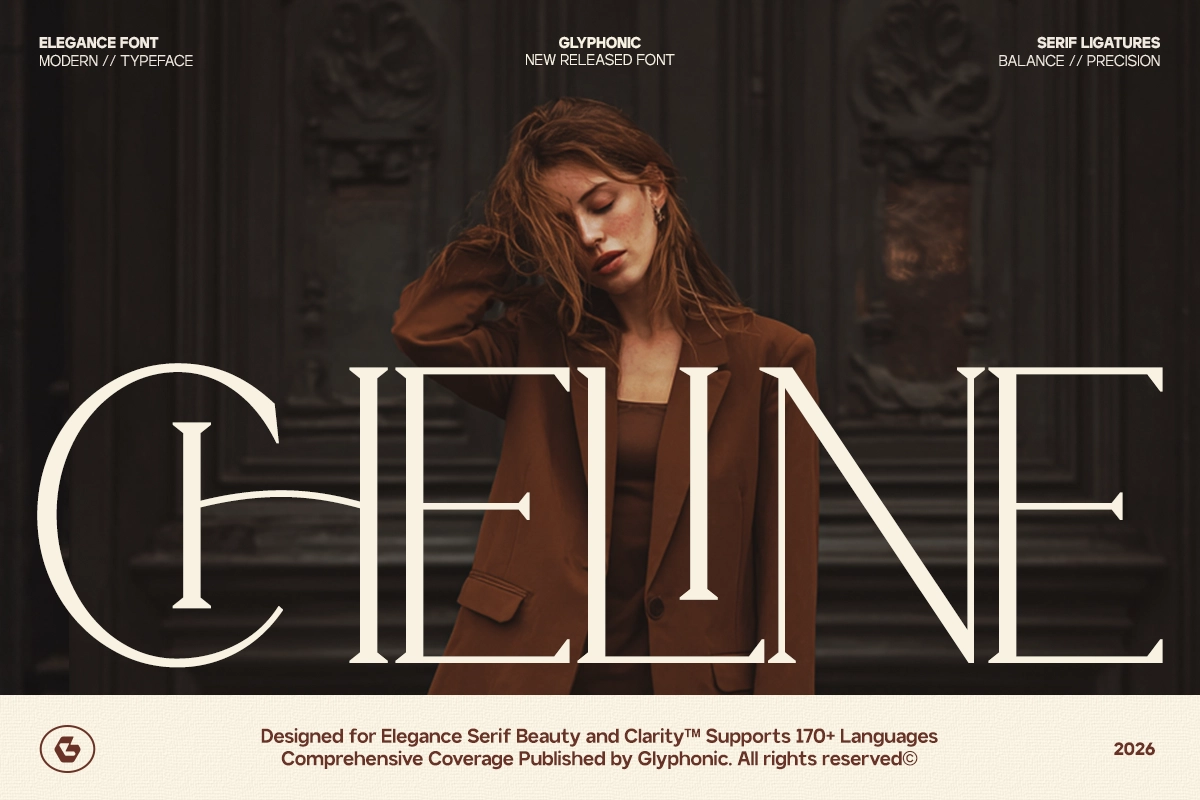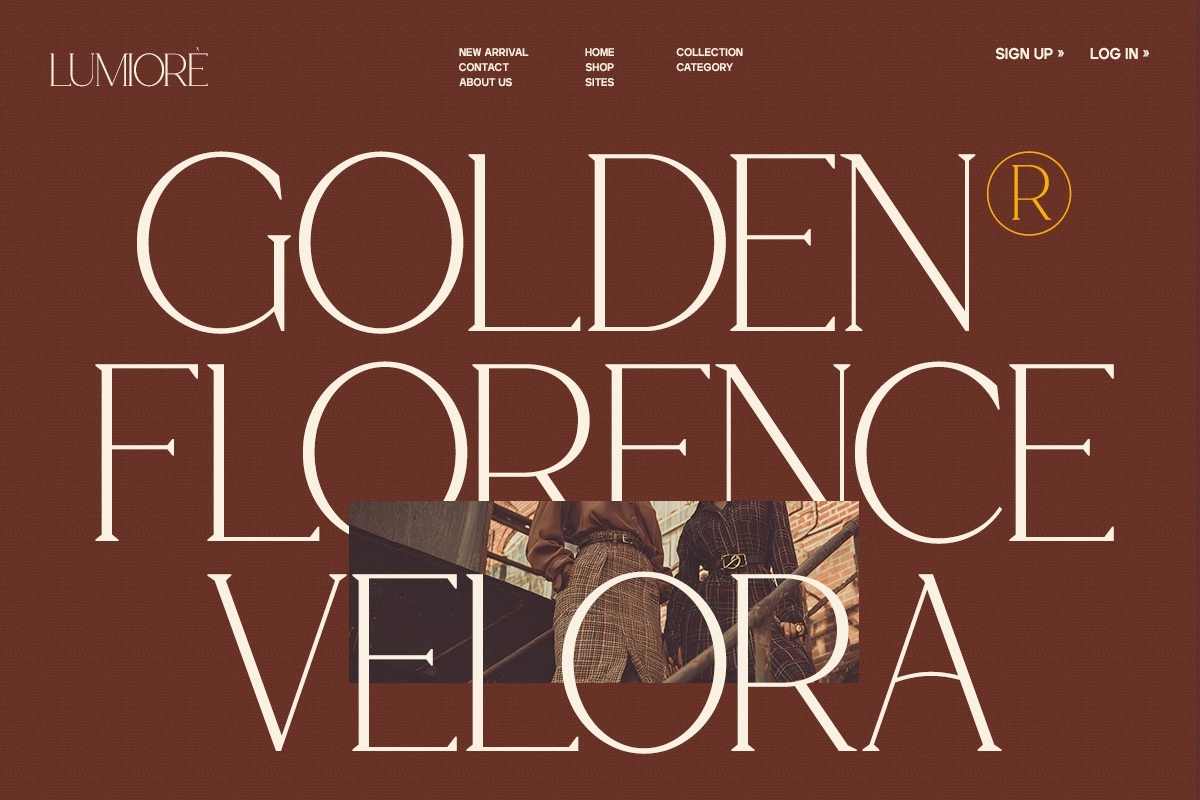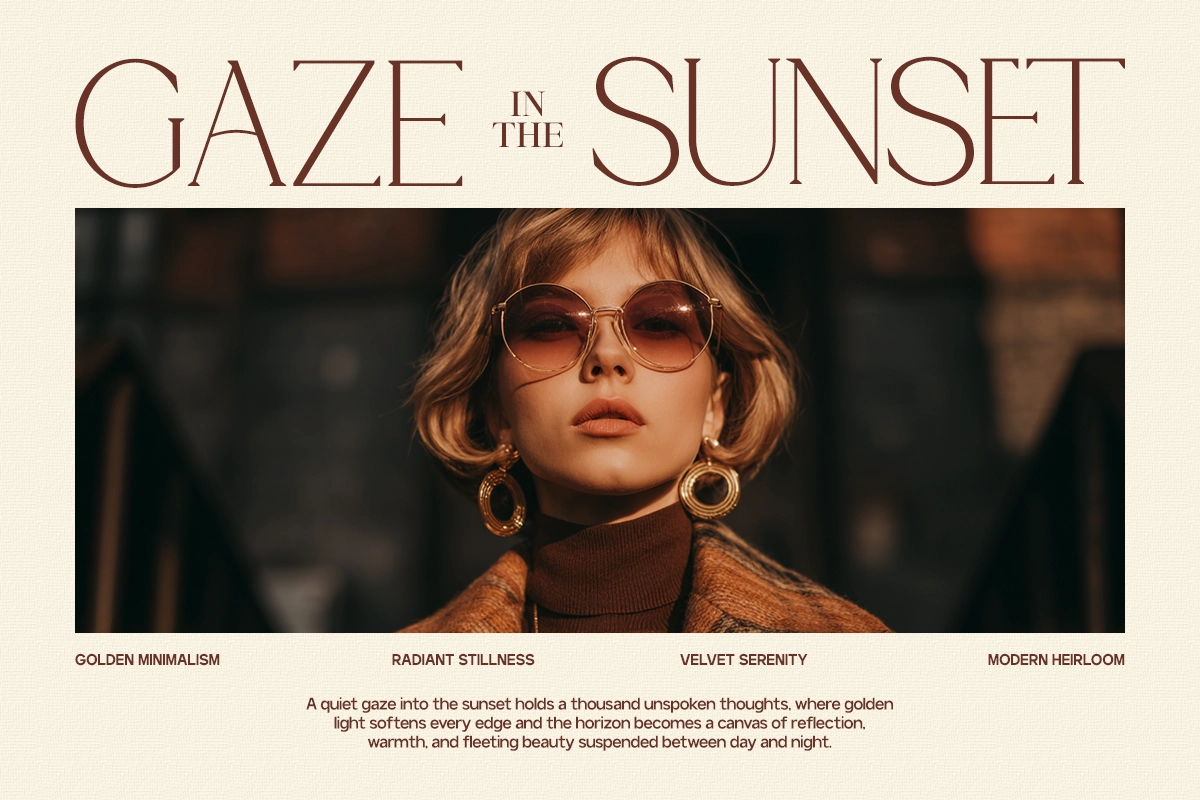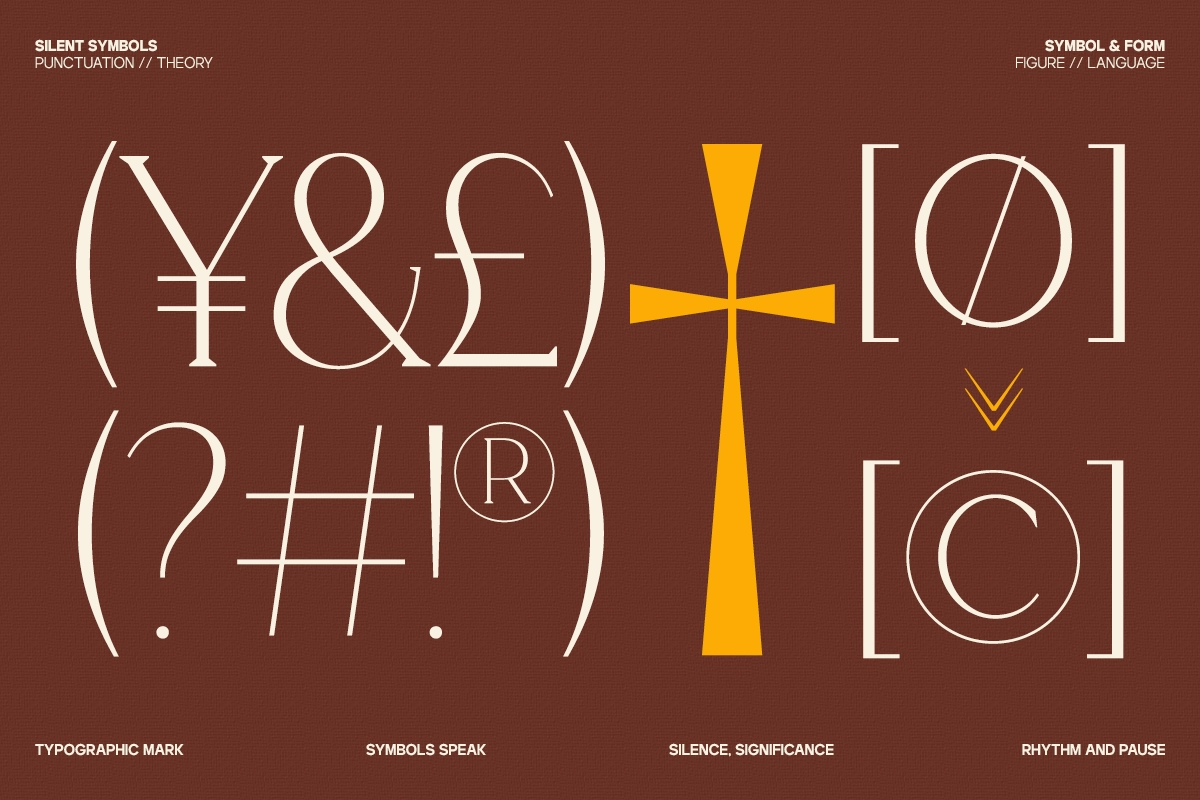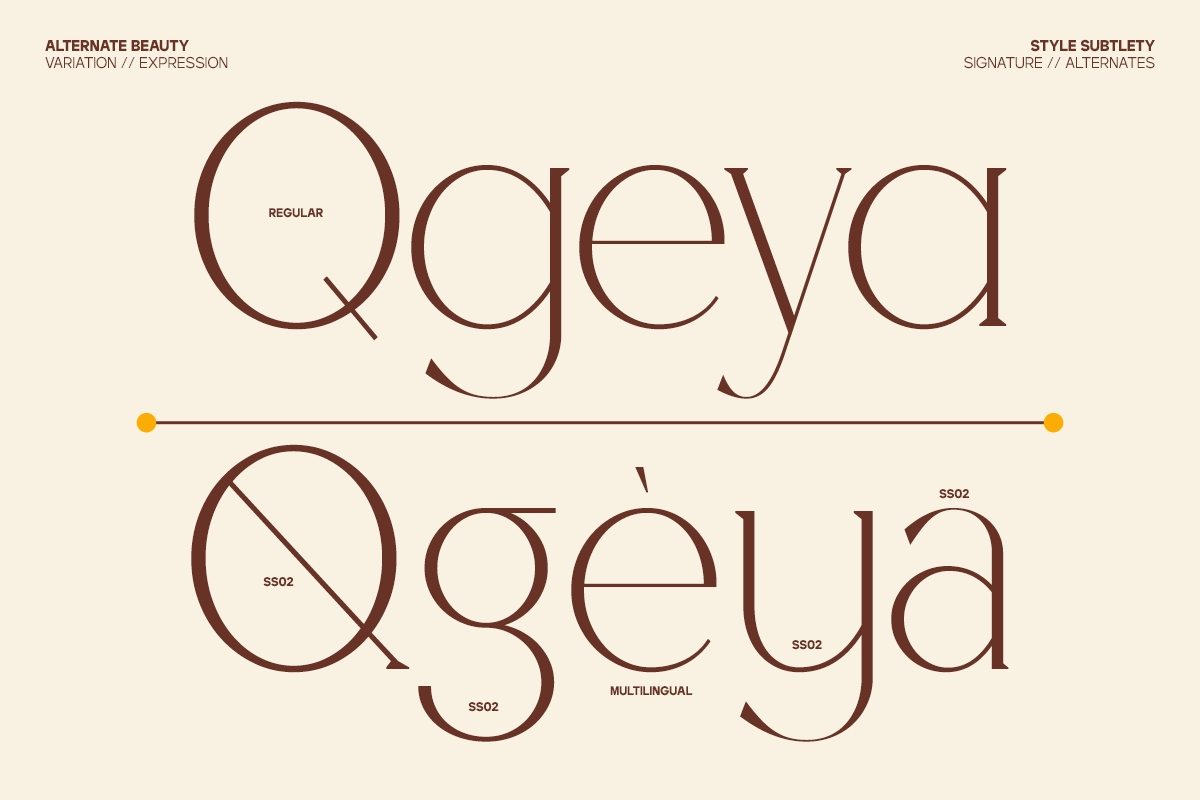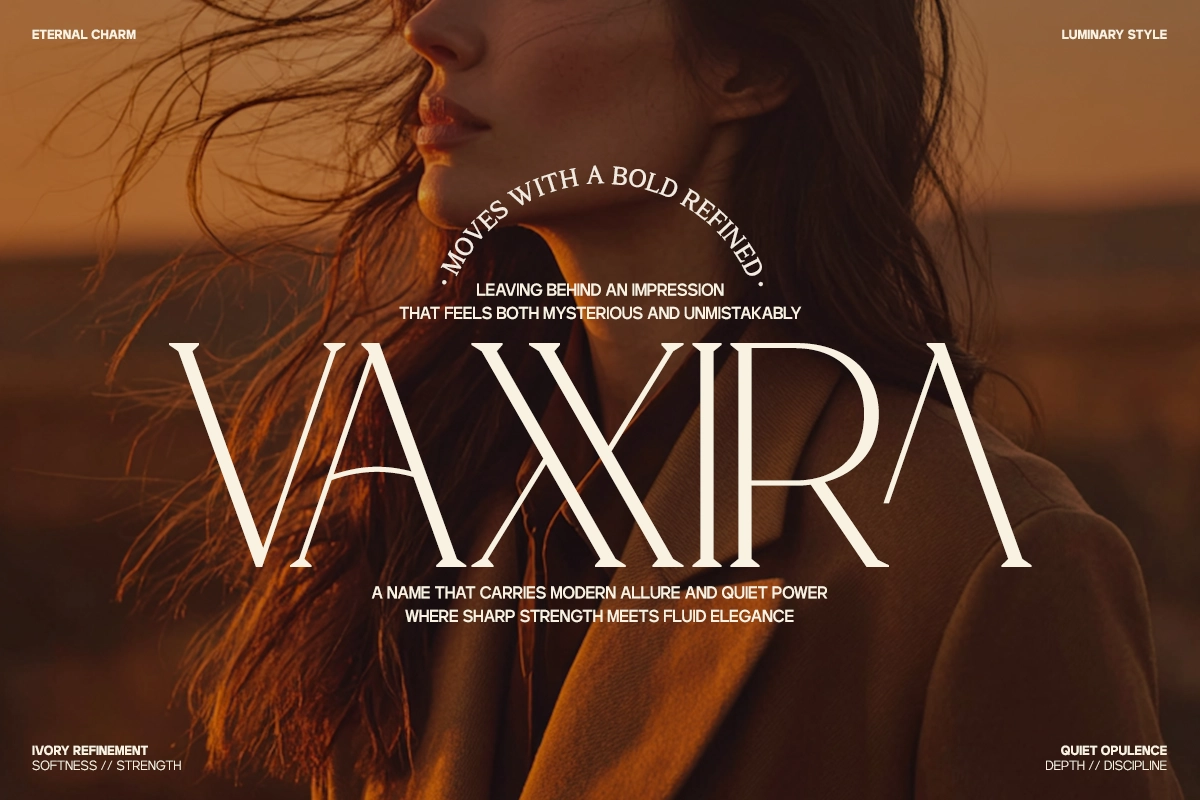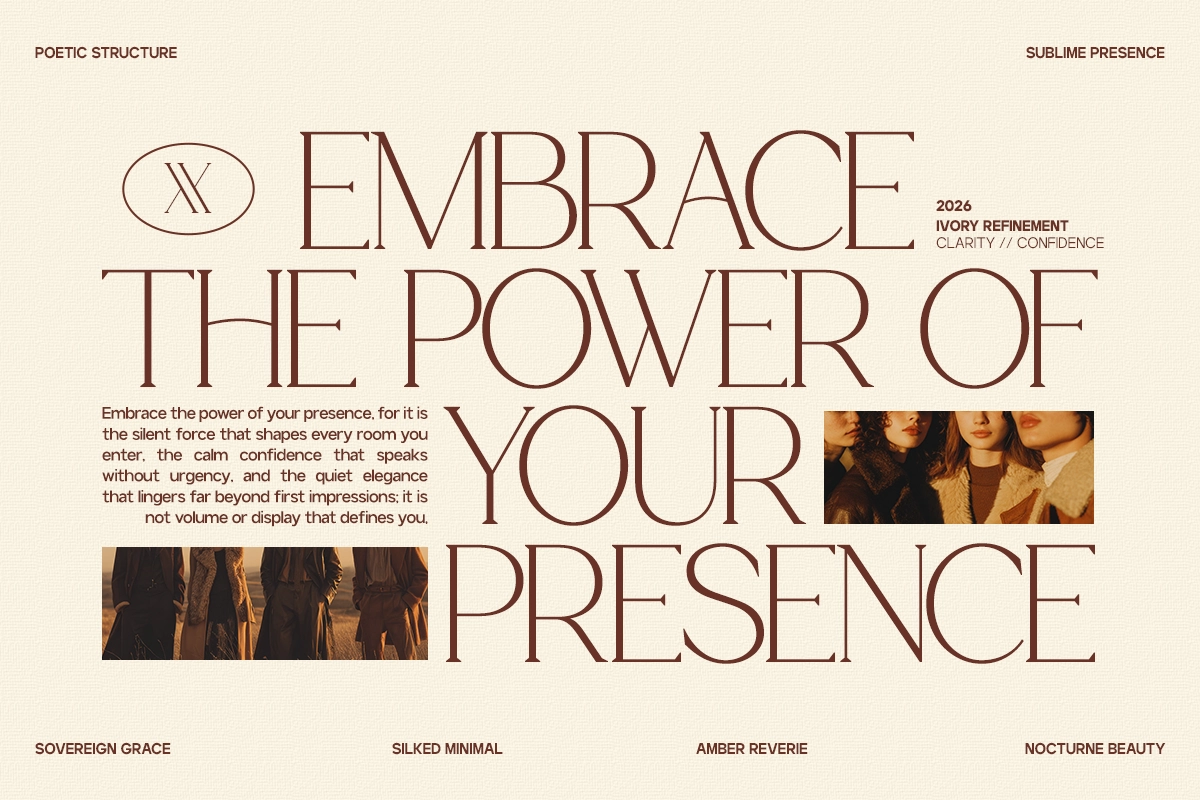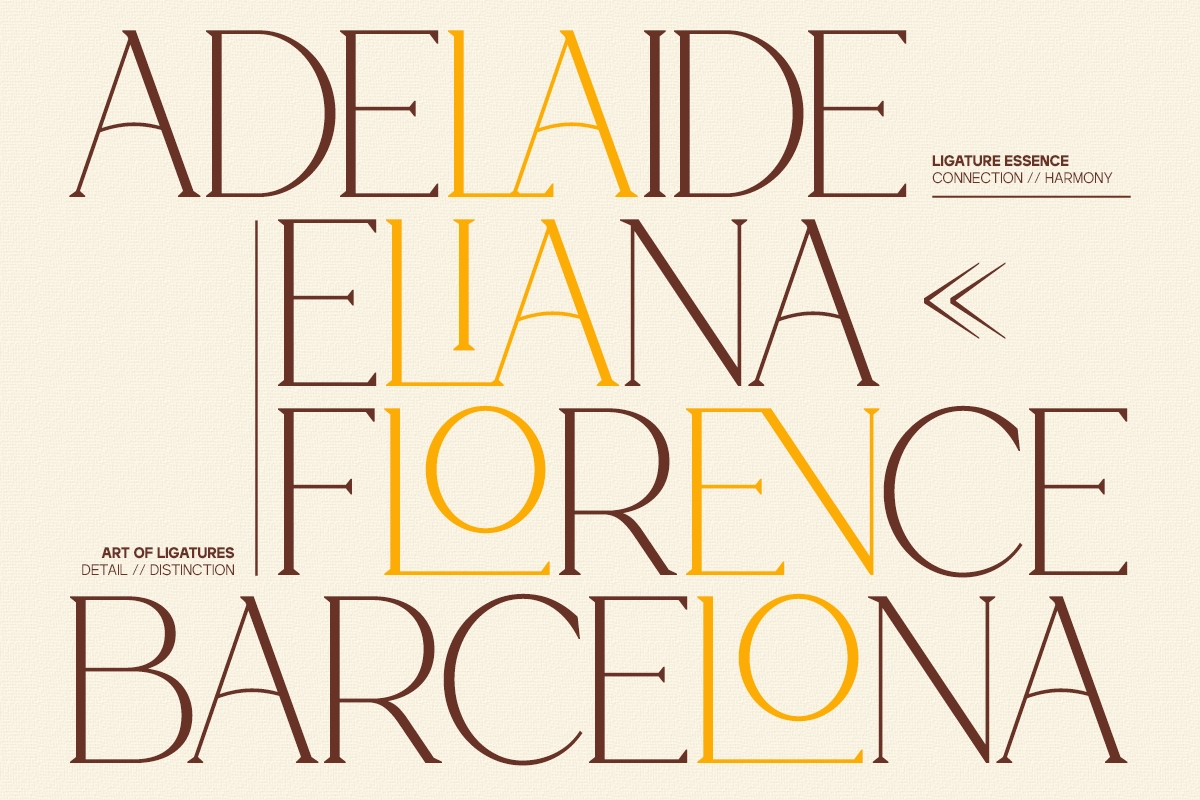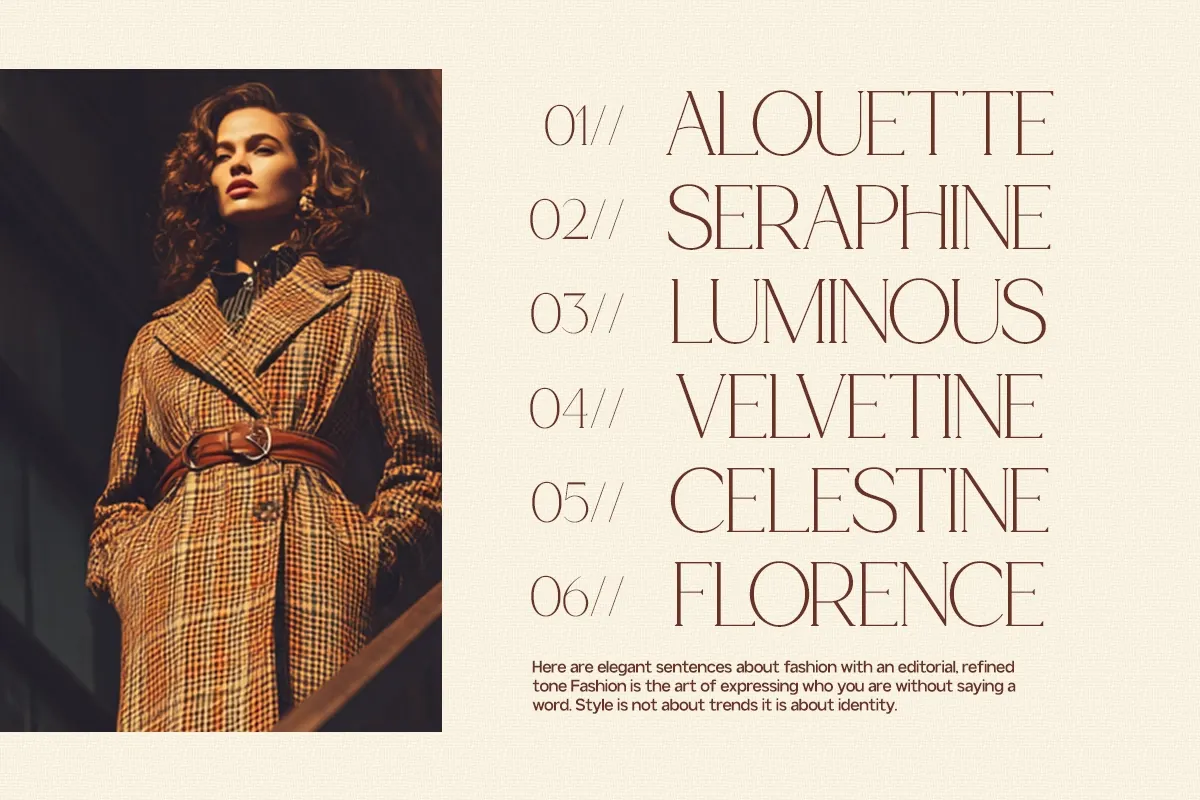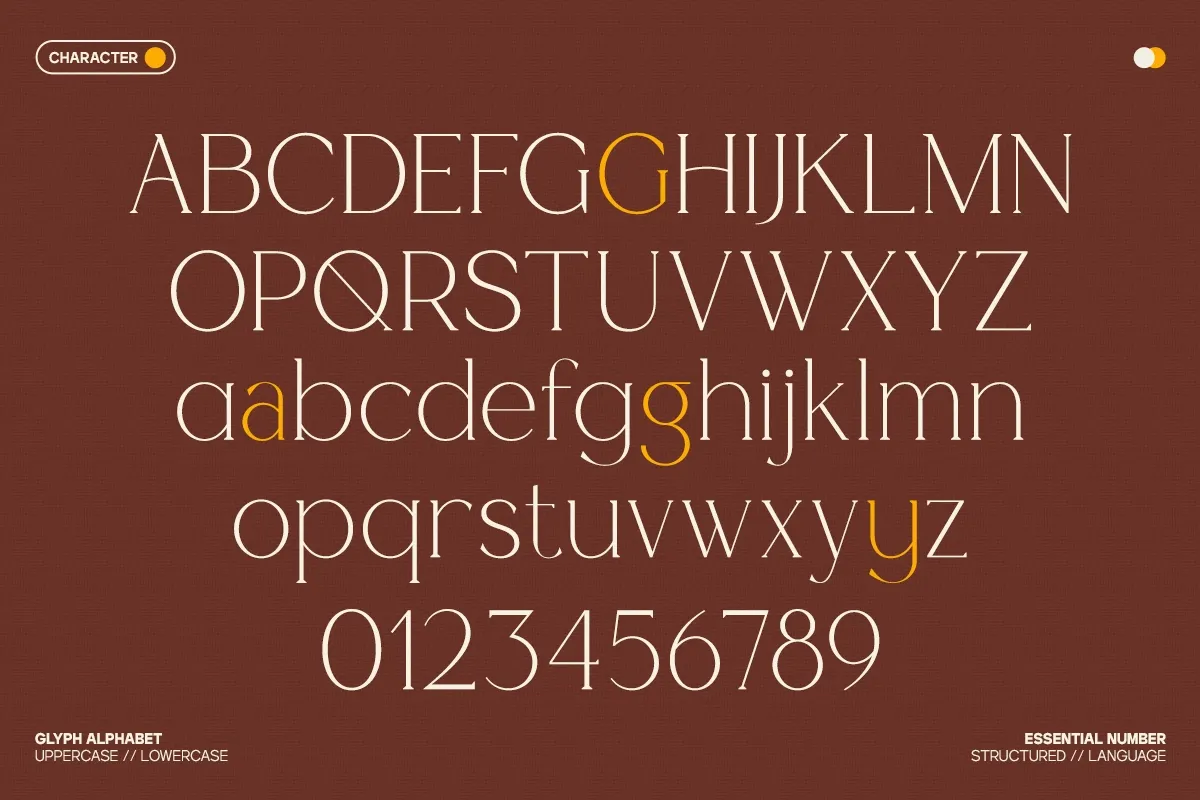
GC Cheline - Modern Elegant Serif
GC Cheline
GC Cheline - Modern Elegant Serif is a sophisticated typeface that blends timeless elegance with contemporary refinement. Designed with graceful curves, delicate contrast, and balanced proportions, it brings a sense of luxury and clarity to any visual composition.
Perfect for fashion branding, editorial layouts, beauty packaging, wedding designs, luxury logos, and high-end identity projects, GC Cheline delivers a polished and confident aesthetic. Its harmonious letterforms work beautifully in both headlines and body text, ensuring versatility across print and digital media.
- Uppercase & lowercase characters
- Elegant modern serif construction
- Multilingual support (170+ languages)